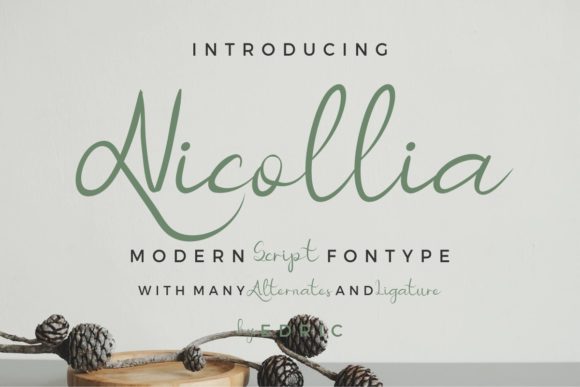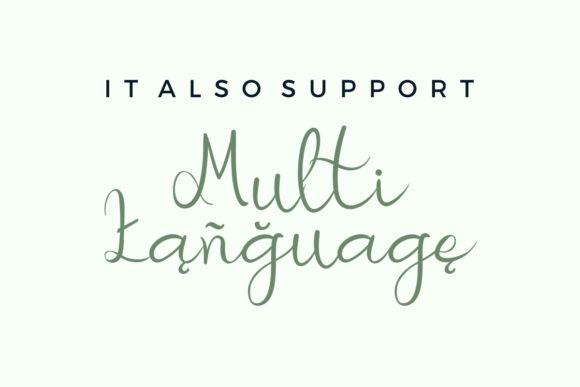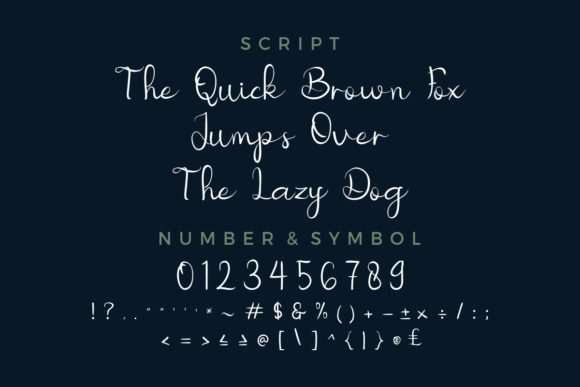
Introduction to Nicollia Font
Have you ever stumbled upon the perfect font for a project, and it just clicks? That’s exactly what happened when designers discovered the Nicollia Font. Its unique, handwritten style is sure to bring a touch of bold charm to any creative project.
Whether you’re working on a free download, a high-quality design, or even a simple social media graphic, the Nicollia Font is a valuable resource that’s sure to elevate your work. Its transparent background makes it easy to incorporate into any design, and its creative flair is perfect for designers looking to add a personal touch.
With its high-quality design and versatility, it’s no wonder the Nicollia Font has become a go-to choice for designers around the world. In this article, we’ll dive deeper into the world of Nicollia Font and explore what makes it so special.
Key Features of Nicollia Font
- High-quality design for creative projects: Nicollia Font is ideal for designers looking for a unique and stylish typography to elevate their designs.
- High-resolution design: The font is designed with a high resolution, making it perfect for use in large-scale designs, such as billboards and posters.
- Unique characteristics: The Nicollia Font features a unique blend of modern and vintage elements, making it a standout choice for designers looking for a distinctive typography.
Honest Review: Nicollia Font
As a designer, I’m always on the lookout for high-quality fonts to elevate my creative projects. I recently came across the Nicollia Font, and I have to say, it’s been a game-changer for my design resource library.
What works well: ✨ The Nicollia Font is incredibly versatile and can be used for a wide range of creative projects, from branding to editorial design. The font is also available for free download, which is a huge plus for designers on a budget. I’ve been impressed with the font’s high quality and the fact that it comes with a transparent background, making it easy to layer and customize.
- Perfect for creative projects, including branding, editorial design, and digital products
Limitations: ⚠️ While the Nicollia Font is an excellent addition to any design library, I do wish it had more character variations and language support. However, these are minor complaints in an otherwise excellent font.
Overall, I’m thoroughly impressed with the Nicollia Font and would highly recommend it to any designer looking for a reliable and high-quality font for their creative projects.
Nicollia Font is ideal for a variety of creative projects, including branding, marketing materials, and digital content. Its versatility makes it suitable for use in various industries, such as fashion, beauty, and lifestyle.